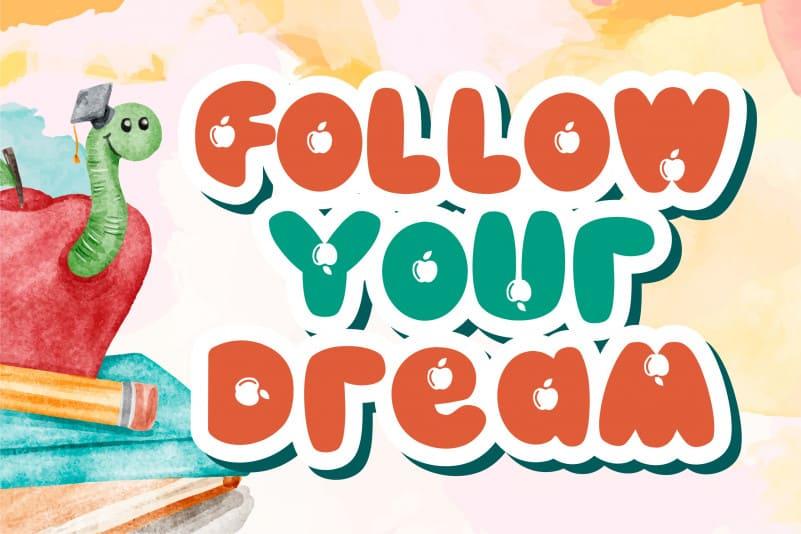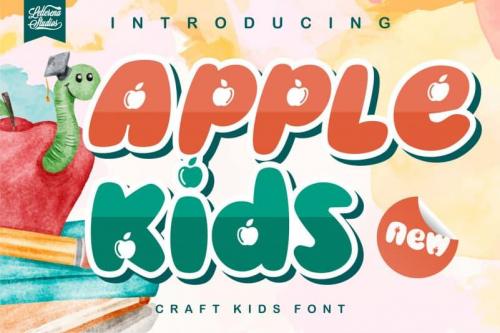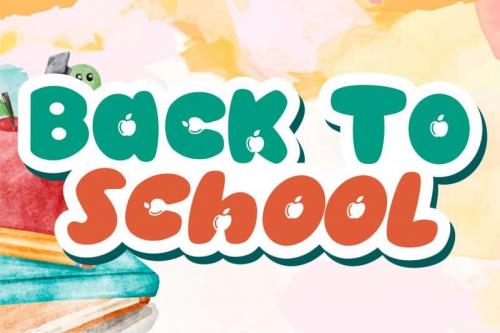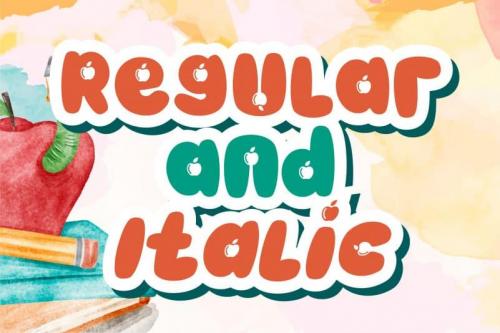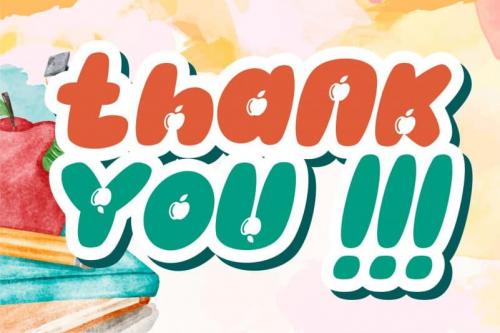
Apple Kids is a cute and colorful display font. It embodies playfulness and authenticity and is the perfect choice for any children activity or school project. Add this chunky lettered font to your designs and notice how it makes them come alive!